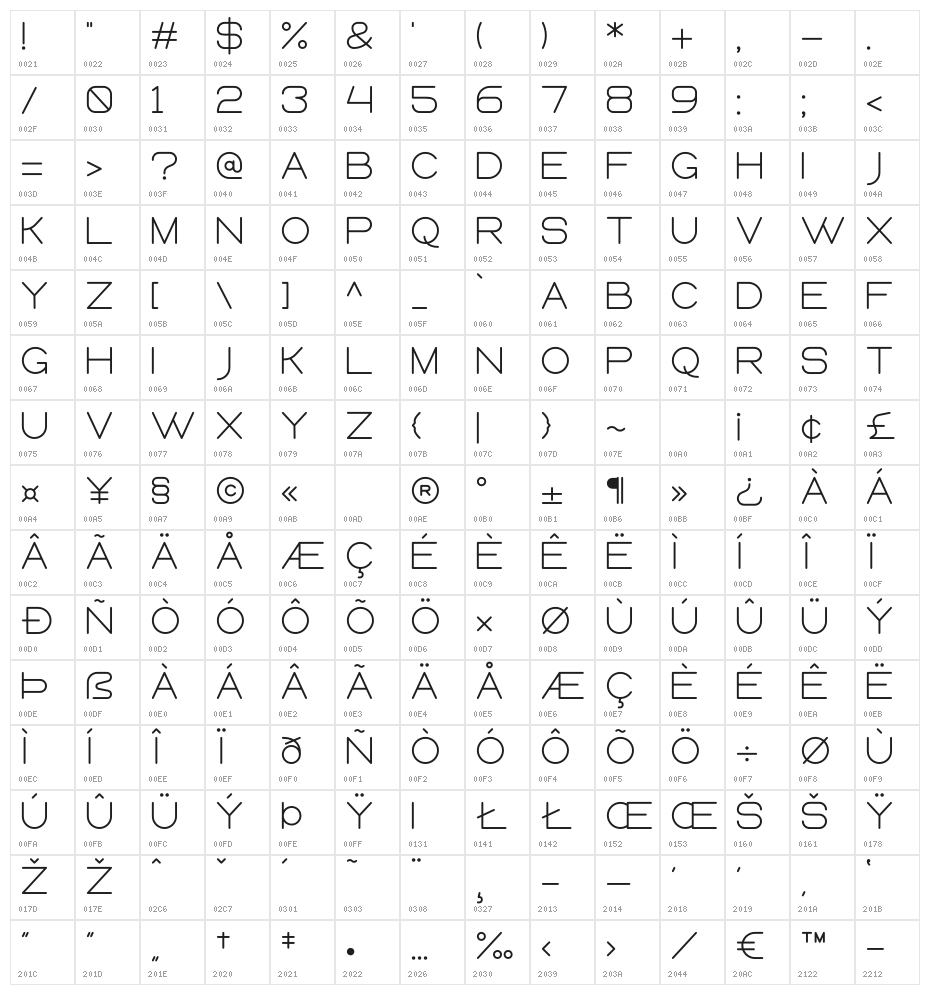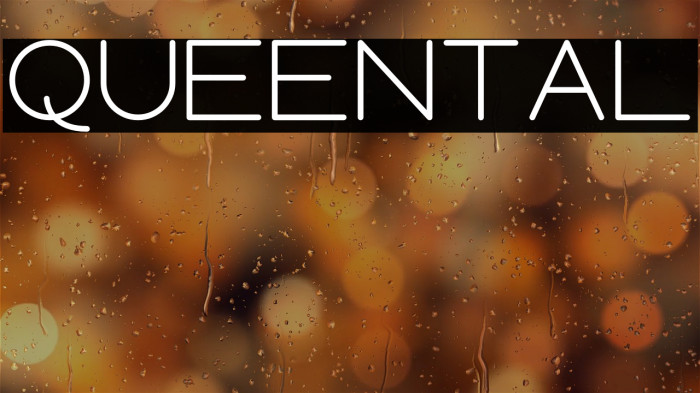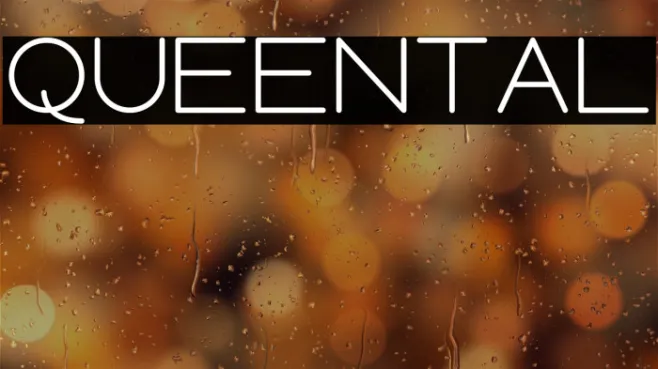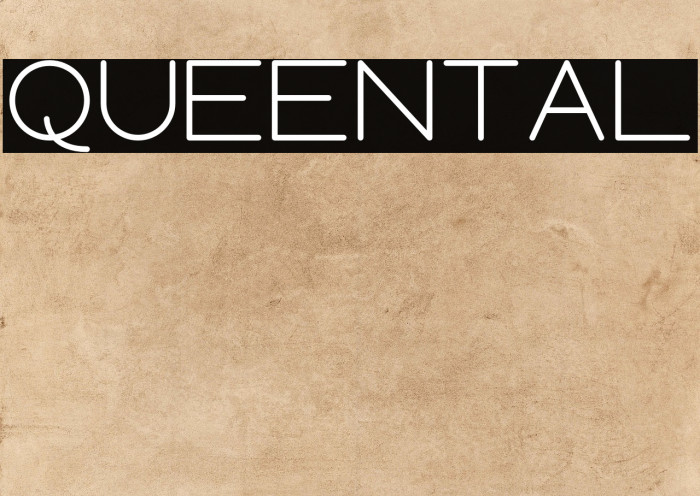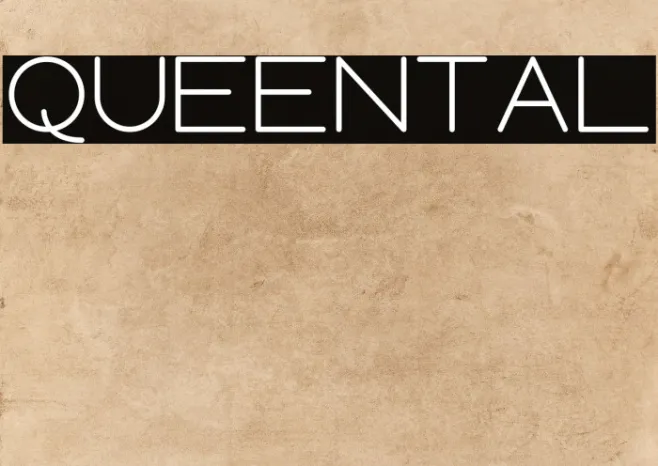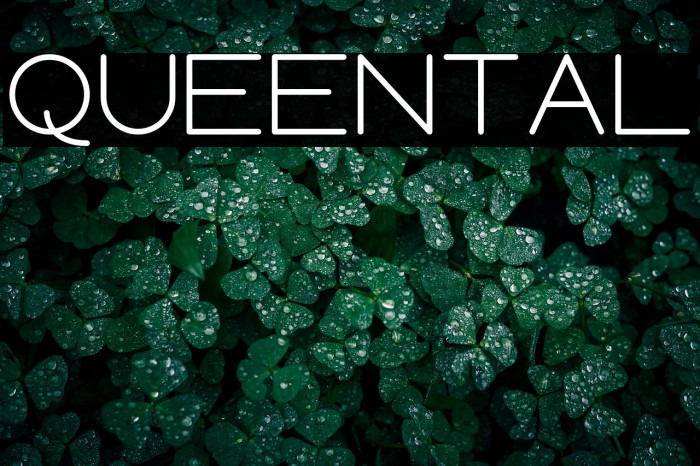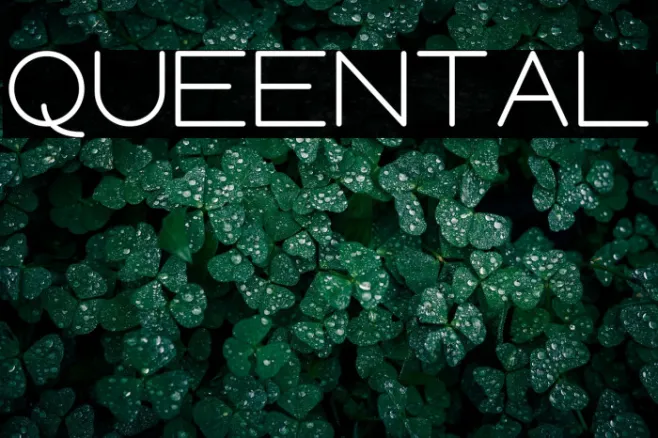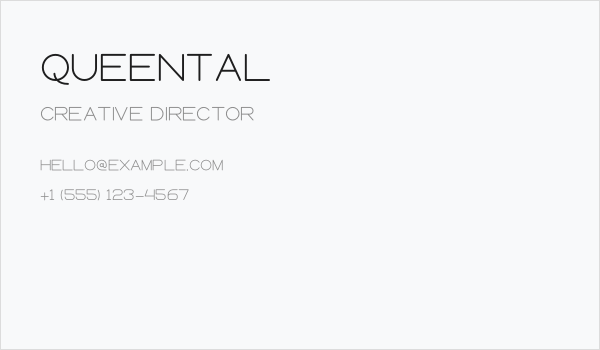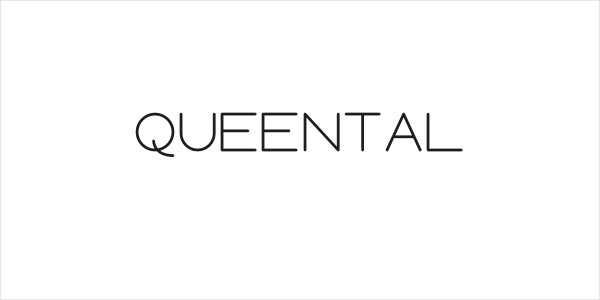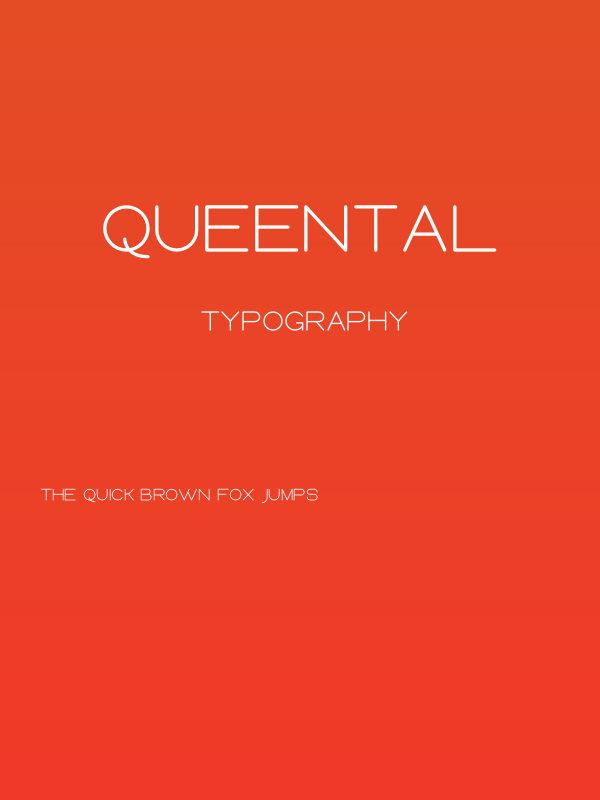
Queental Font
Queental Description
This font features a clean, geometric design with a modern aesthetic. The characters are composed of straight lines and smooth curves, creating a minimalist and contemporary look. The uppercase and lowercase letters maintain a consistent height, contributing to a uniform appearance. The numerals are equally well-crafted, with a sleek and streamlined form. Special characters are designed with the same attention to detail, ensuring they integrate seamlessly with the rest of the typeface. The overall style is elegant yet simple, making it versatile for various design applications.
| Proposed Projects | Ideal for branding, digital interfaces, and modern print designs. |